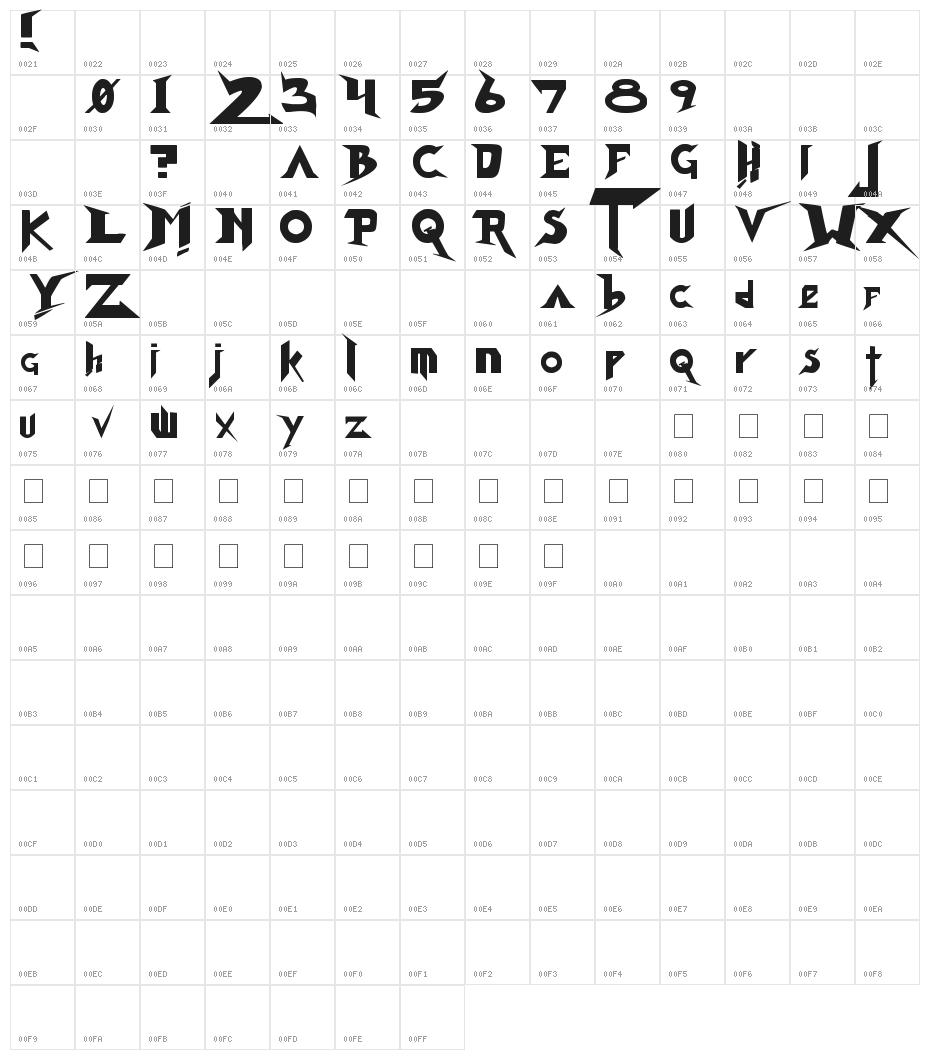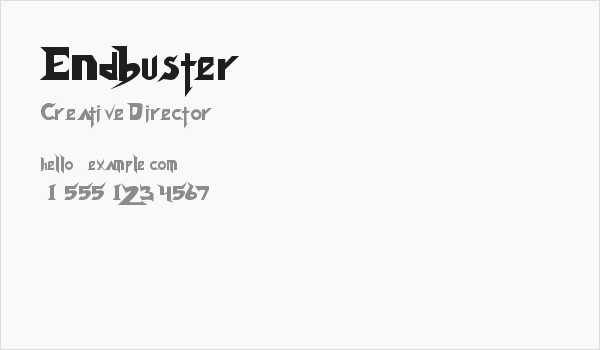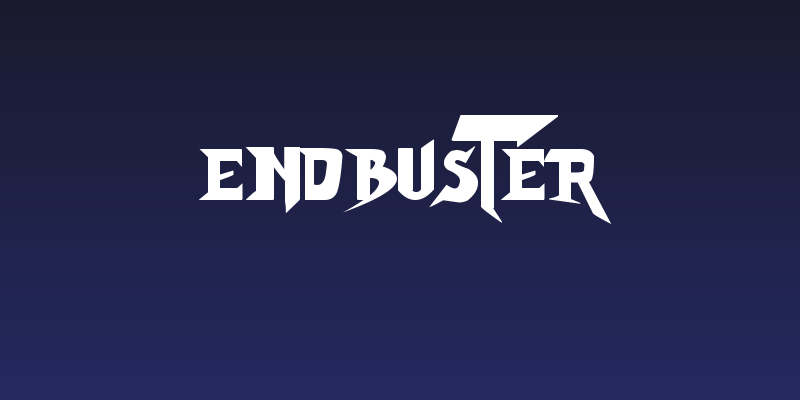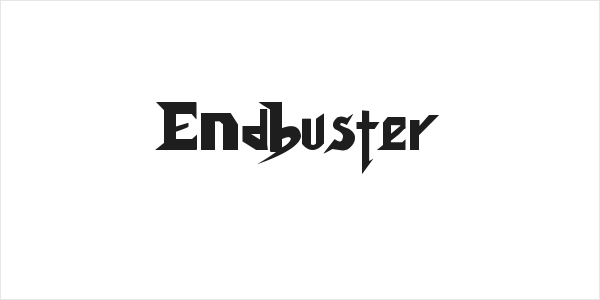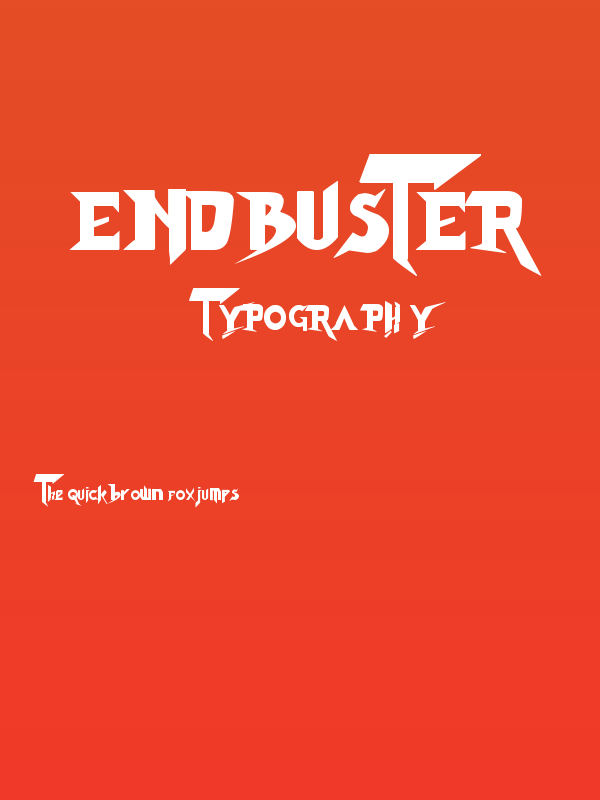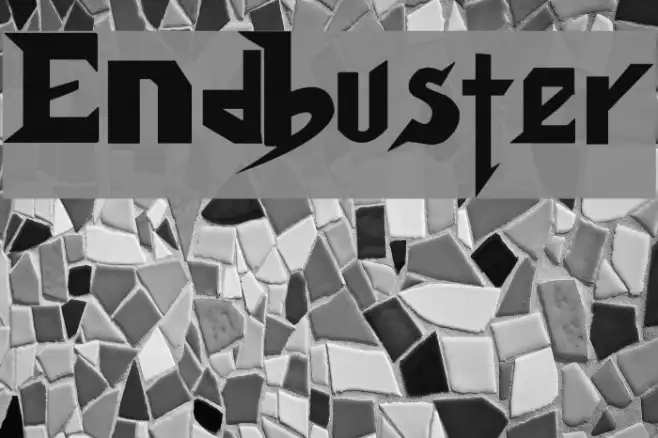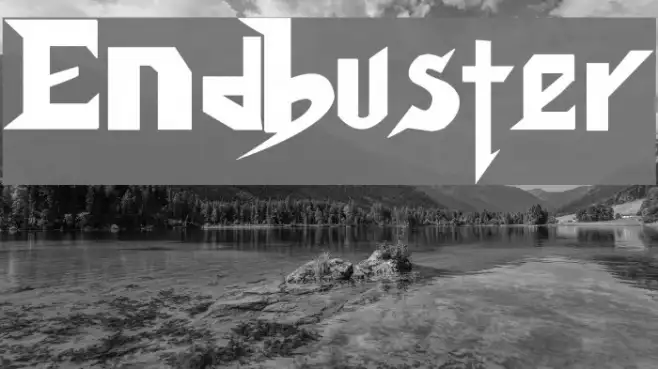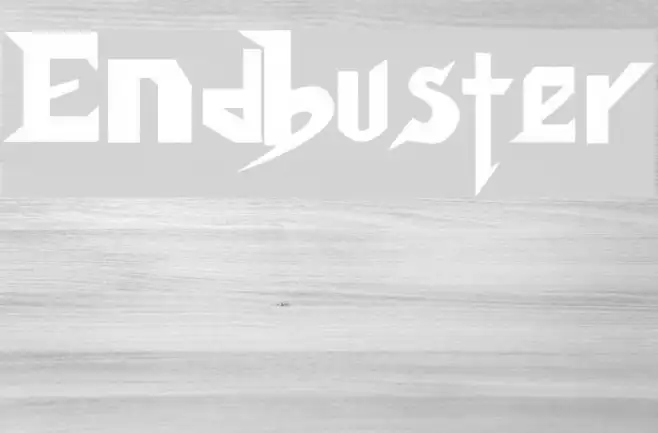
Endbuster Font
Endbuster Description
This font features a bold and aggressive style with sharp, angular edges and a dynamic, energetic appearance. The characters are designed with a high level of contrast, emphasizing thick strokes and pointed terminals. The uppercase and lowercase letters maintain a consistent theme, with unique geometric shapes that create a sense of movement and intensity. The numerals and special characters follow the same design principles, ensuring a cohesive look across all elements. This font is ideal for projects that require a strong visual impact and a modern, edgy aesthetic.
ENDBUSTER UPPERCASE
ENDBUSTER LOWERCASE
ENDBUSTER OTHER CHARS
| Overall Style | Modern, Edgy |
| Proposed Projects | Ideal for music album covers, sports team logos, video game titles, and action movie posters. |